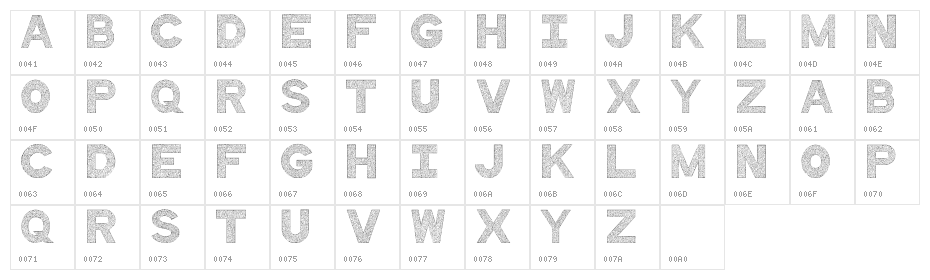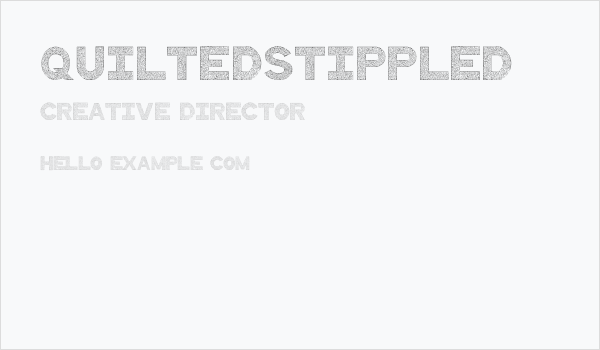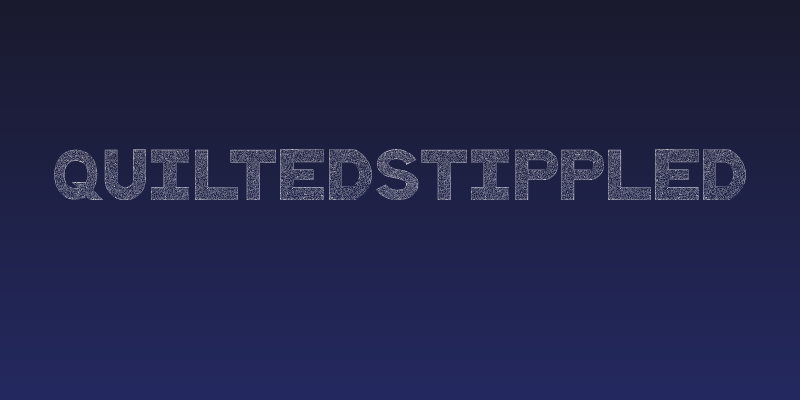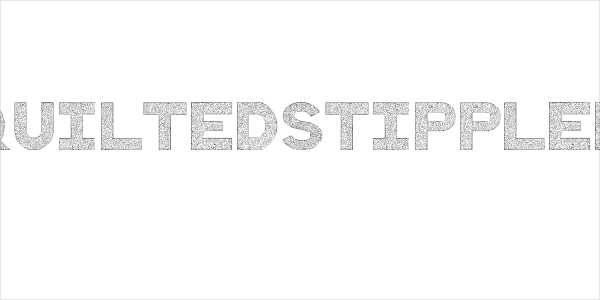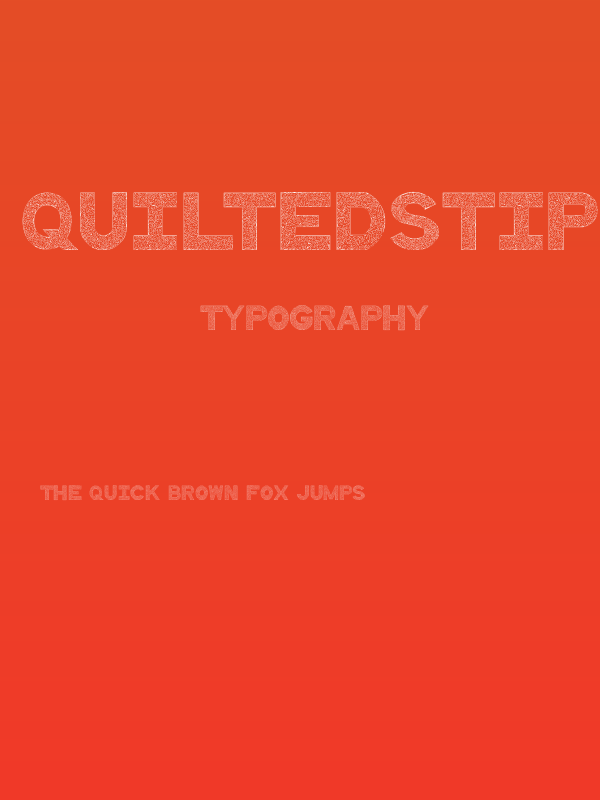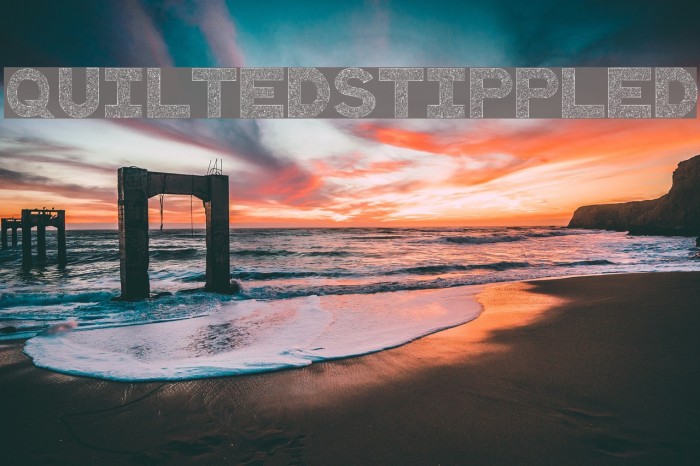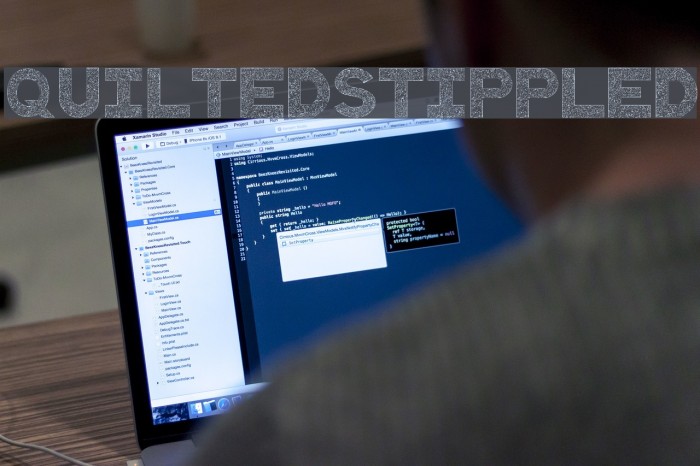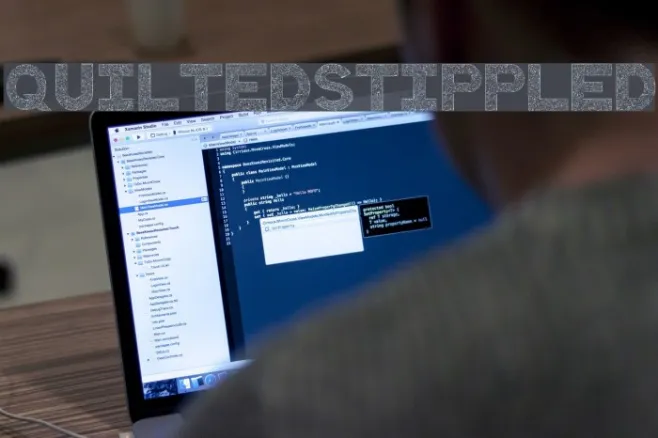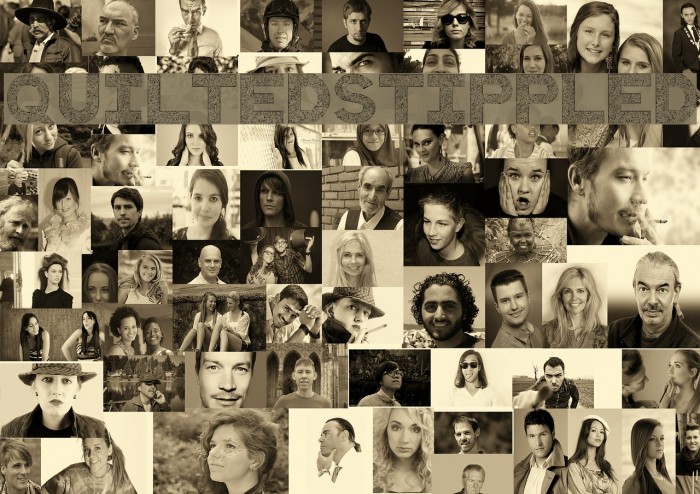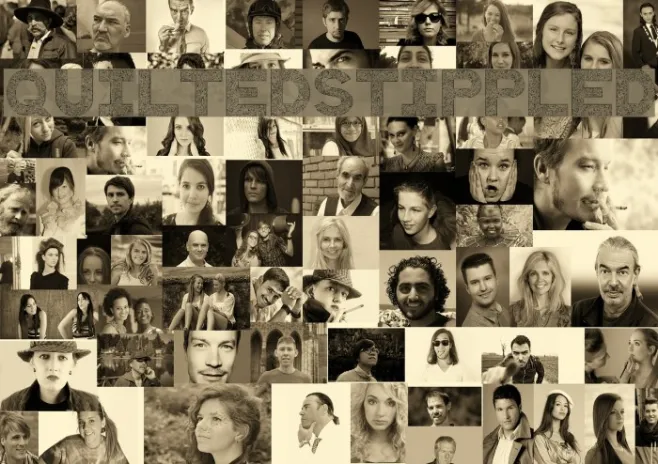
QuiltedStippled Font
QuiltedStippled Description
This font features a unique stippled texture that gives it a quilted appearance, adding depth and visual interest. The characters are bold and geometric, with a modern sans-serif style. Each letter is filled with intricate patterns, creating a tactile and artistic effect. The overall design is clean yet decorative, making it suitable for eye-catching displays. The uppercase letters are uniform in height, providing a balanced and cohesive look across the alphabet. This font is perfect for projects that require a touch of creativity and elegance.
| Proposed Projects | Ideal for branding, posters, packaging, and creative design projects. |